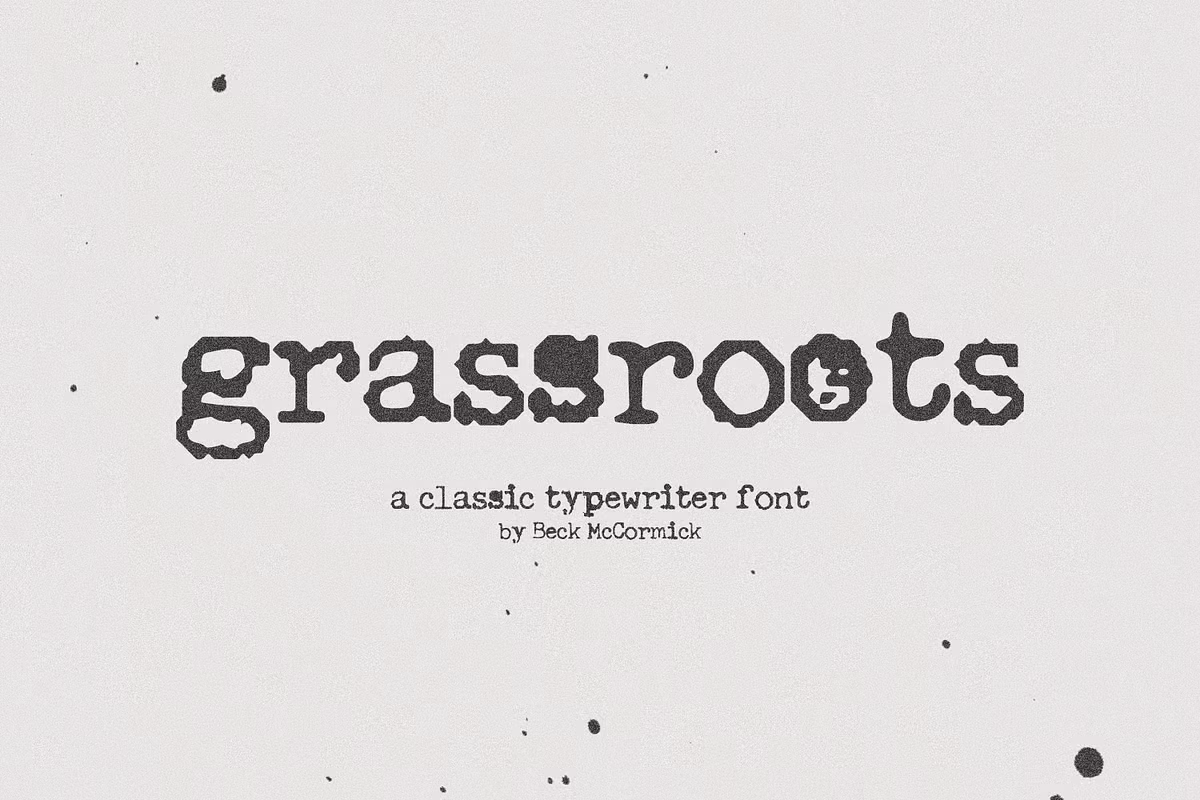
Grassroots Typewriter Font Free Download
Grassroots Typewriter Font Free Download brings a nostalgic, vintage feel to your designs with its classic typewriter-style aesthetic. Ideal for projects that need a touch of retro charm or an authentic old-school vibe, this font is perfect for journals, posters, book covers, branding materials, and historical content.
Its slightly irregular, textured characters mimic the look of ink hitting paper, giving your work a raw and personal touch. Whether you're designing a writer-themed blog, a mystery novel cover, or a heritage-inspired logo, Grassroots delivers that timeless typewritten appeal.